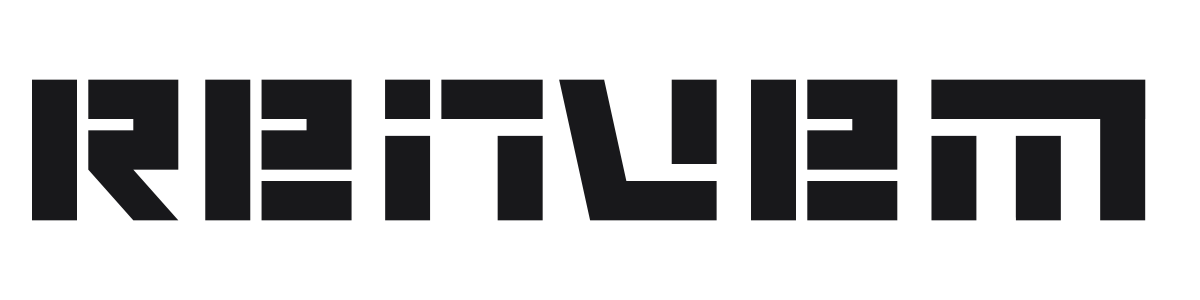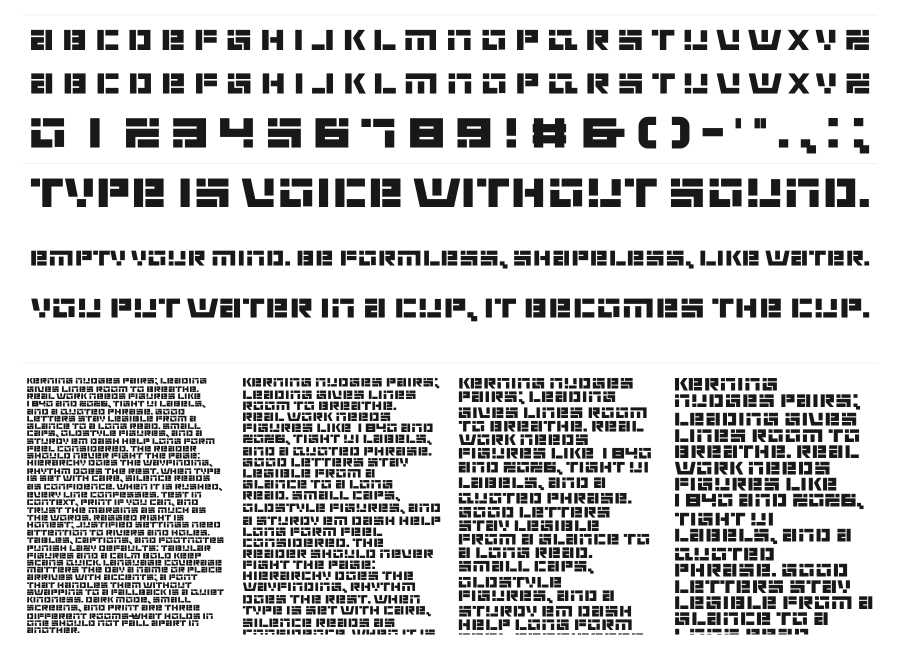
Renvem
Renvem is a heavy modular display font built entirely from rectangular grid segments with deliberate cuts and gaps. Each character feels engineered rather than drawn, assembled from rectilinear blocks in a way that reads as simultaneously mechanical and futuristic. It suits gaming branding, tech headlines, and any context that needs raw structural intensity.